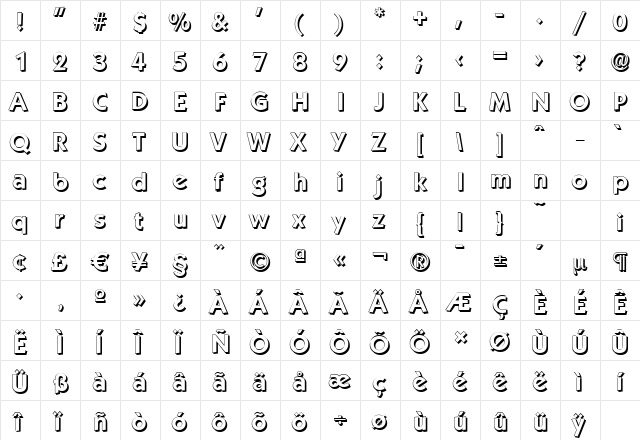
KoblenzShadow Bold Font Preview
KoblenzShadow Bold
KoblenzShadow Bold Font Details
Design Context for KoblenzShadow Typeface
KoblenzShadow brings ornamental detail and strong personality to headlines and identities, where visual impact matters more than quiet functionality. Its bold stroke weight gives it real presence on the page.
Font Pairing: Pair with a clean neutral sans-serif for body copy to let KoblenzShadow's character lead without overwhelming the composition.
Pro Tip: Treat KoblenzShadow as the centrepiece of your typographic hierarchy. One strong heading set in a decorative face can carry an entire layout.